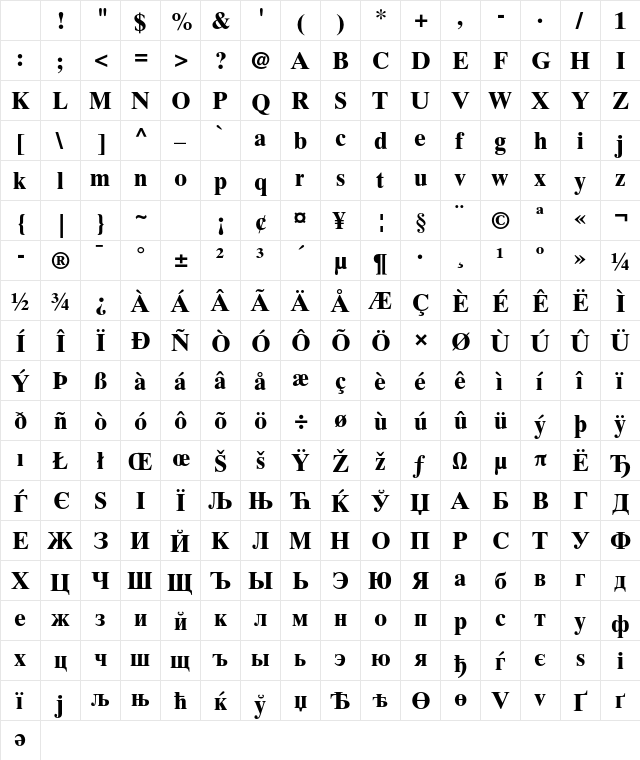
Complete Times Ten LT Std Bold glyph index. Displaying only characters natively supported by Times Ten LT Std Bold font.
Times Ten LT Std is a composed and adaptable typeface that performs quietly and consistently across a wide range of design contexts. Its bold stroke weight gives it real presence on the page.